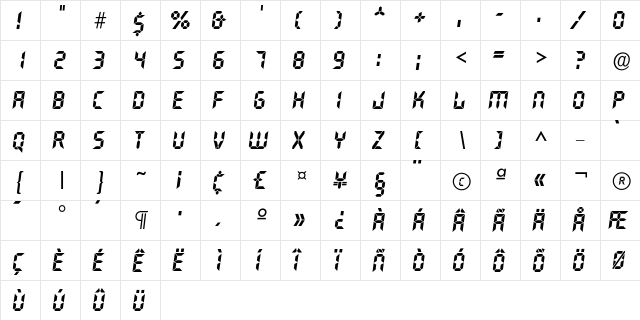
Iquartz-Bold Regular
Design Context for Iquartz-Bold Typeface
Iquartz-Bold is a composed and adaptable typeface that performs quietly and consistently across a wide range of design contexts. The heavy weight commands attention and anchors typographic hierarchies.